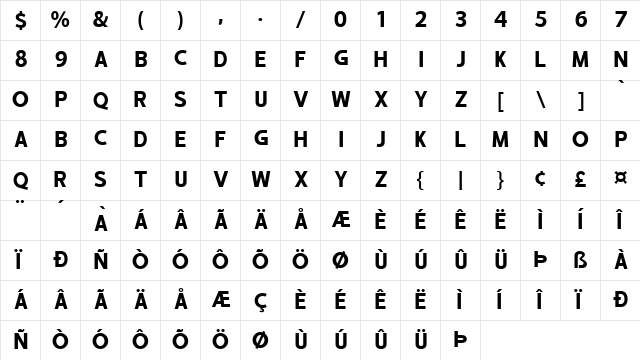
hustle 6 Regular
| Foundry | andhi yulianto ( great19 ) |
| Designer | andhi yulianto |
Design Context for hustle 6 Typeface
hustle 6 offers clean, dependable letterforms without strong stylistic allegiance, making it a practical choice for designers who need flexibility.